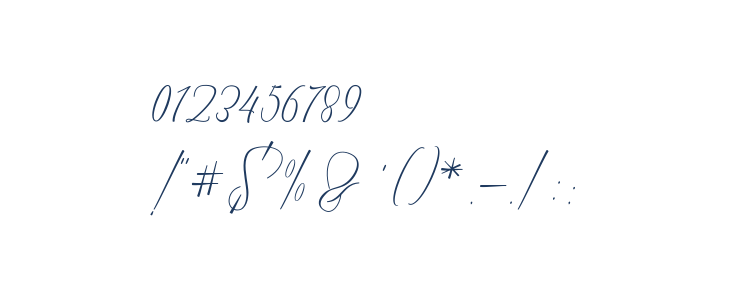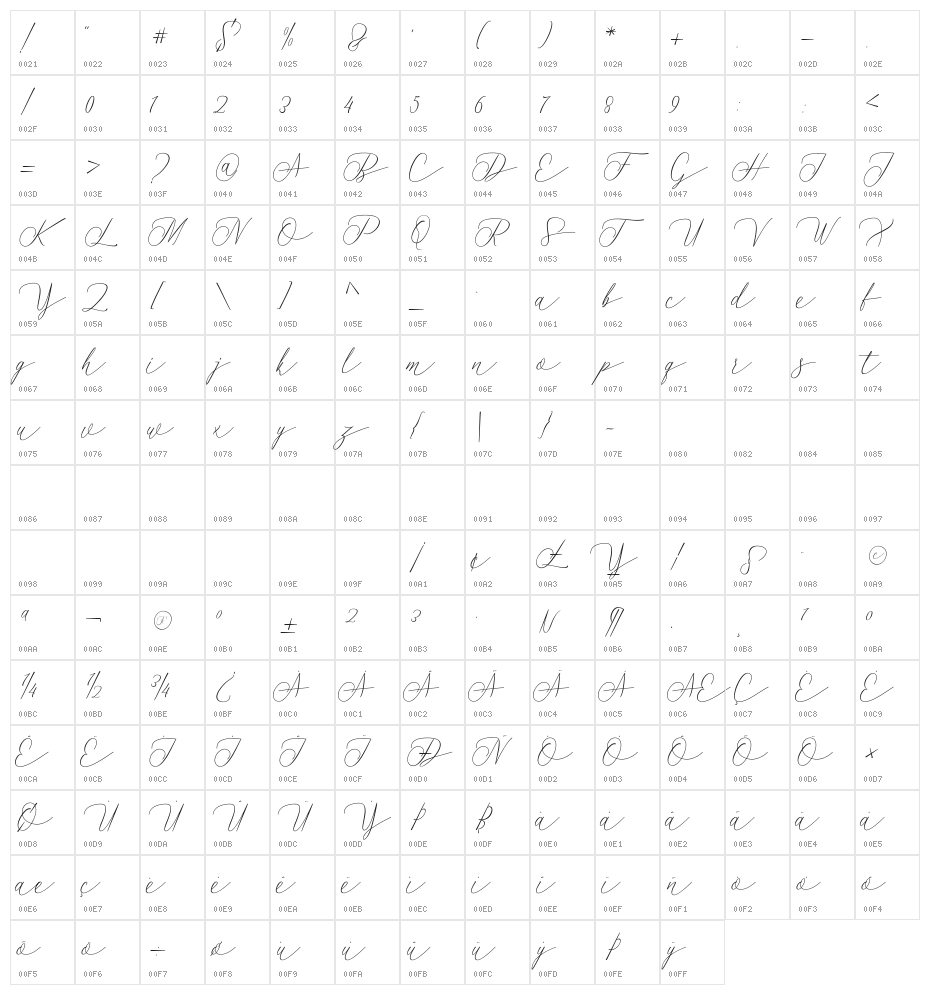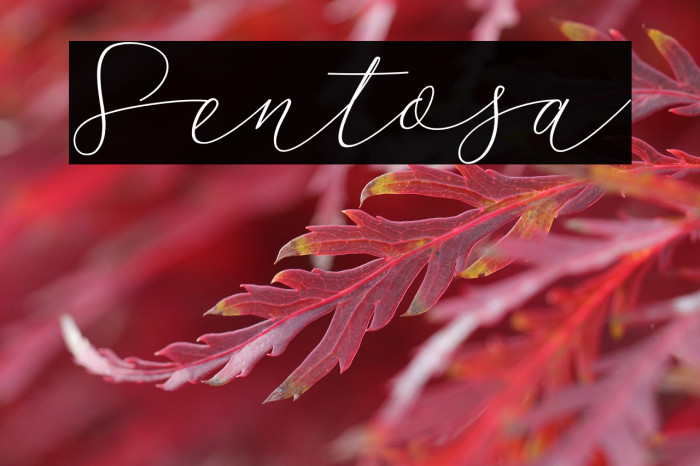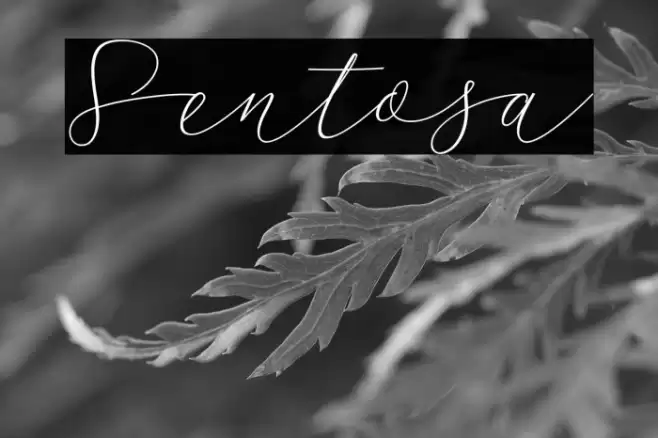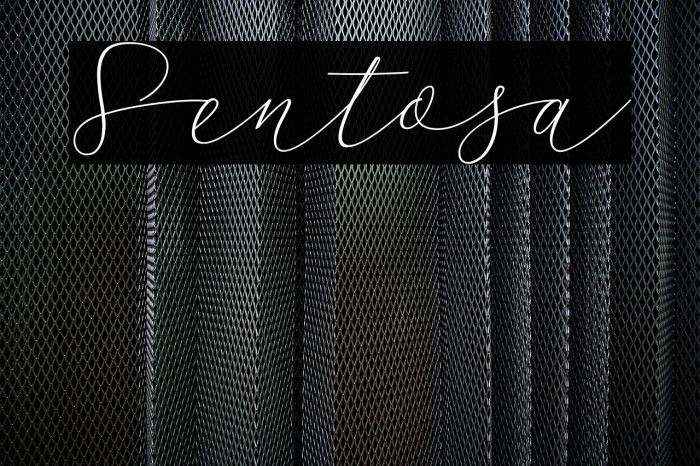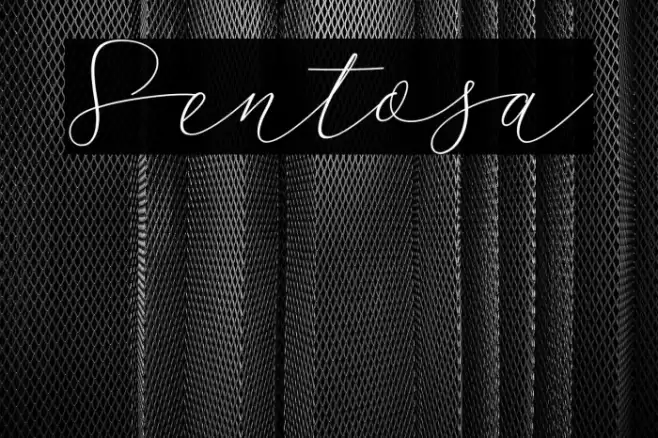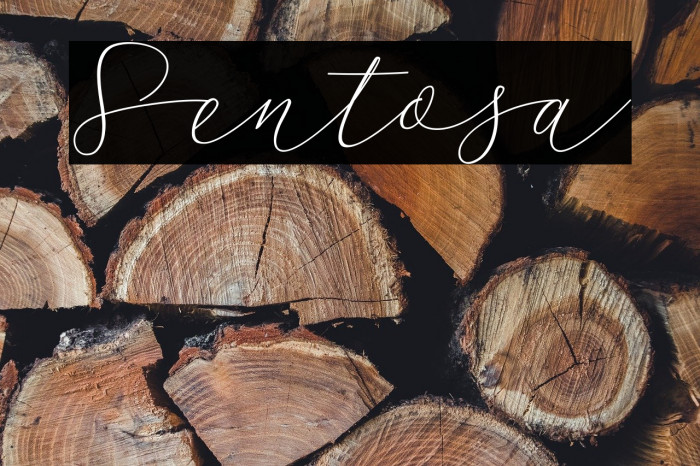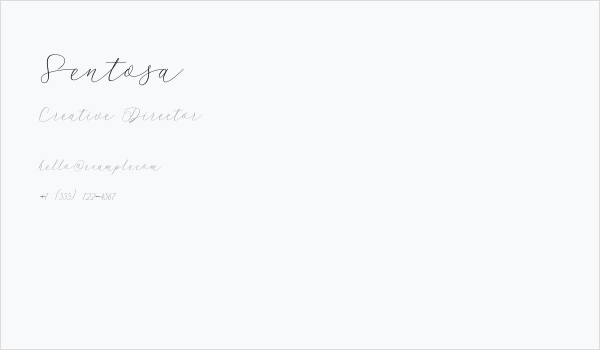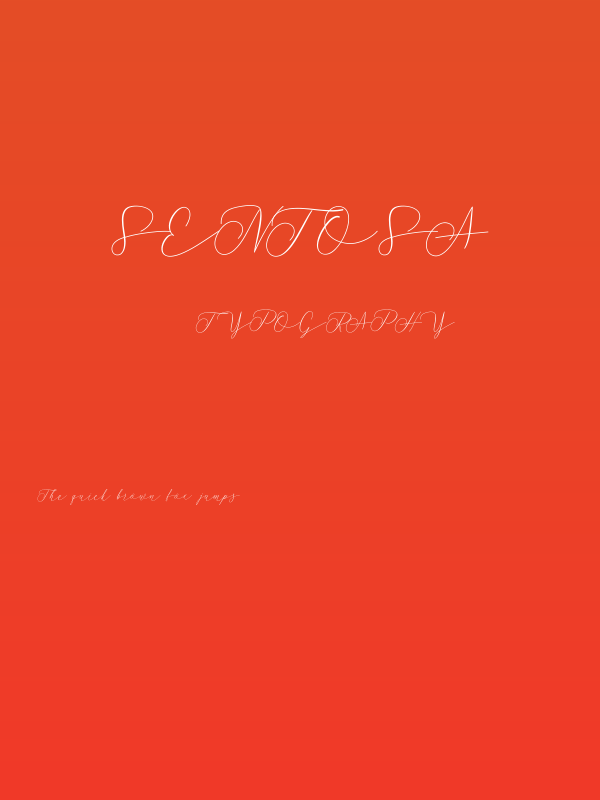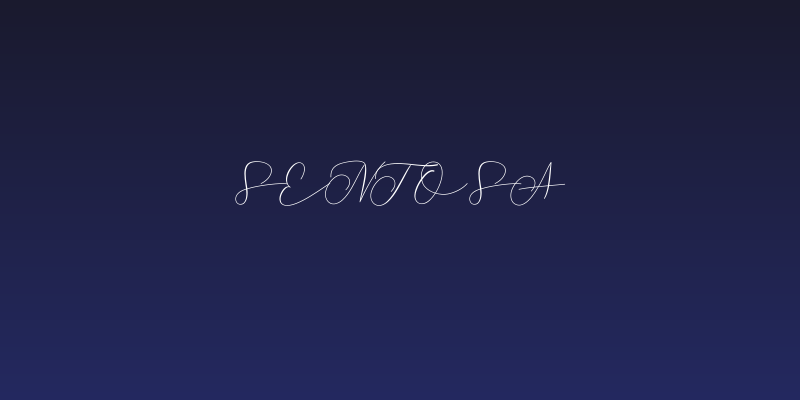
Sentosa Font
Sentosa Description
This elegant script font features a delicate and flowing style, characterized by its thin, graceful strokes and fluid connections between letters. The uppercase letters are slightly more ornate, with subtle flourishes that add a touch of sophistication. The lowercase letters maintain a consistent slant, enhancing the overall fluidity and elegance. The numerals are clear and legible, maintaining the same thin stroke weight as the letters. Special characters are designed with the same attention to detail, ensuring a cohesive look throughout. This font exudes a sense of refinement and is perfect for projects that require a touch of elegance and class.
Overall StyleElegant
Use CaseLogos, Invitations, Stationery
Proposed ProjectsIdeal for wedding invitations, elegant branding, personal stationery, and upscale packaging.